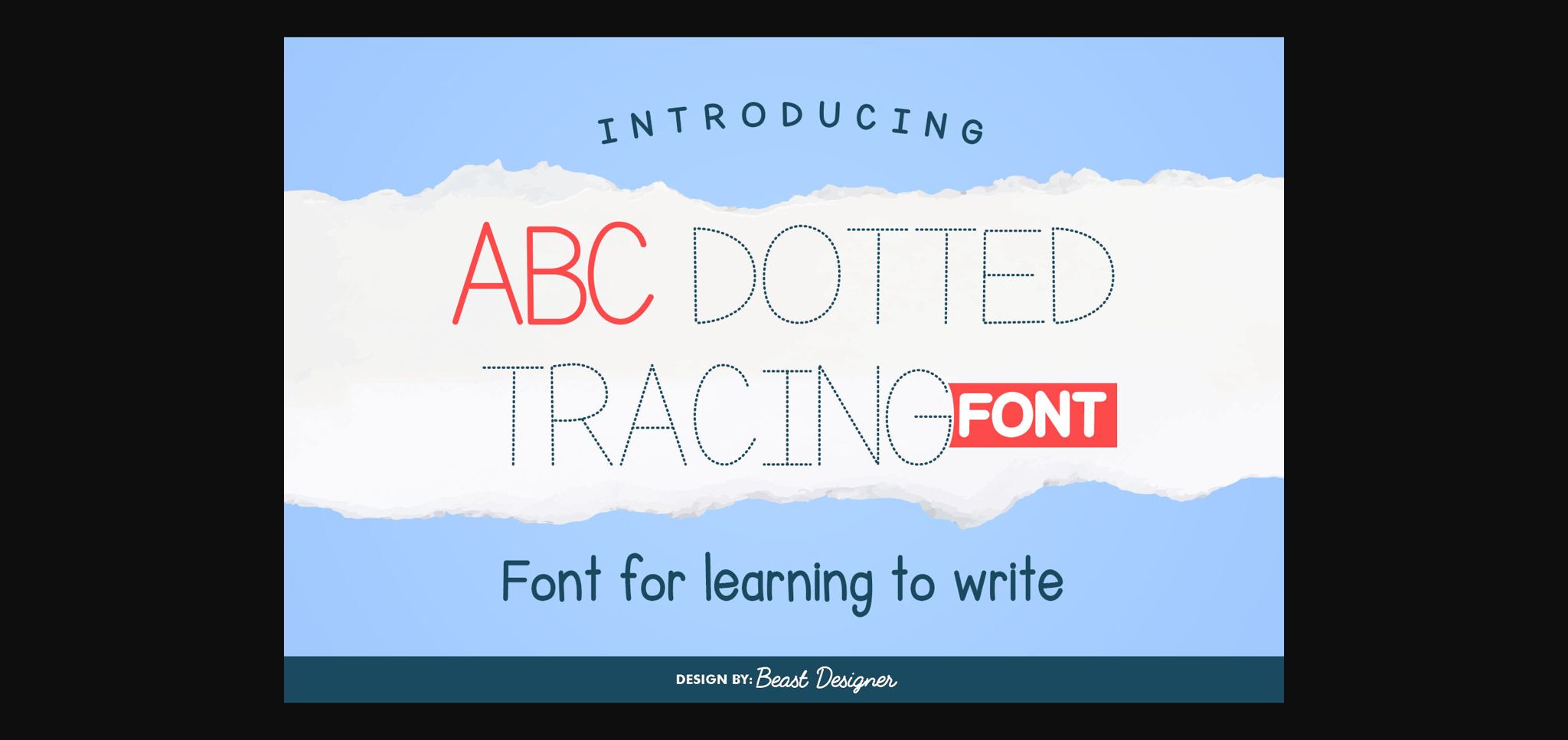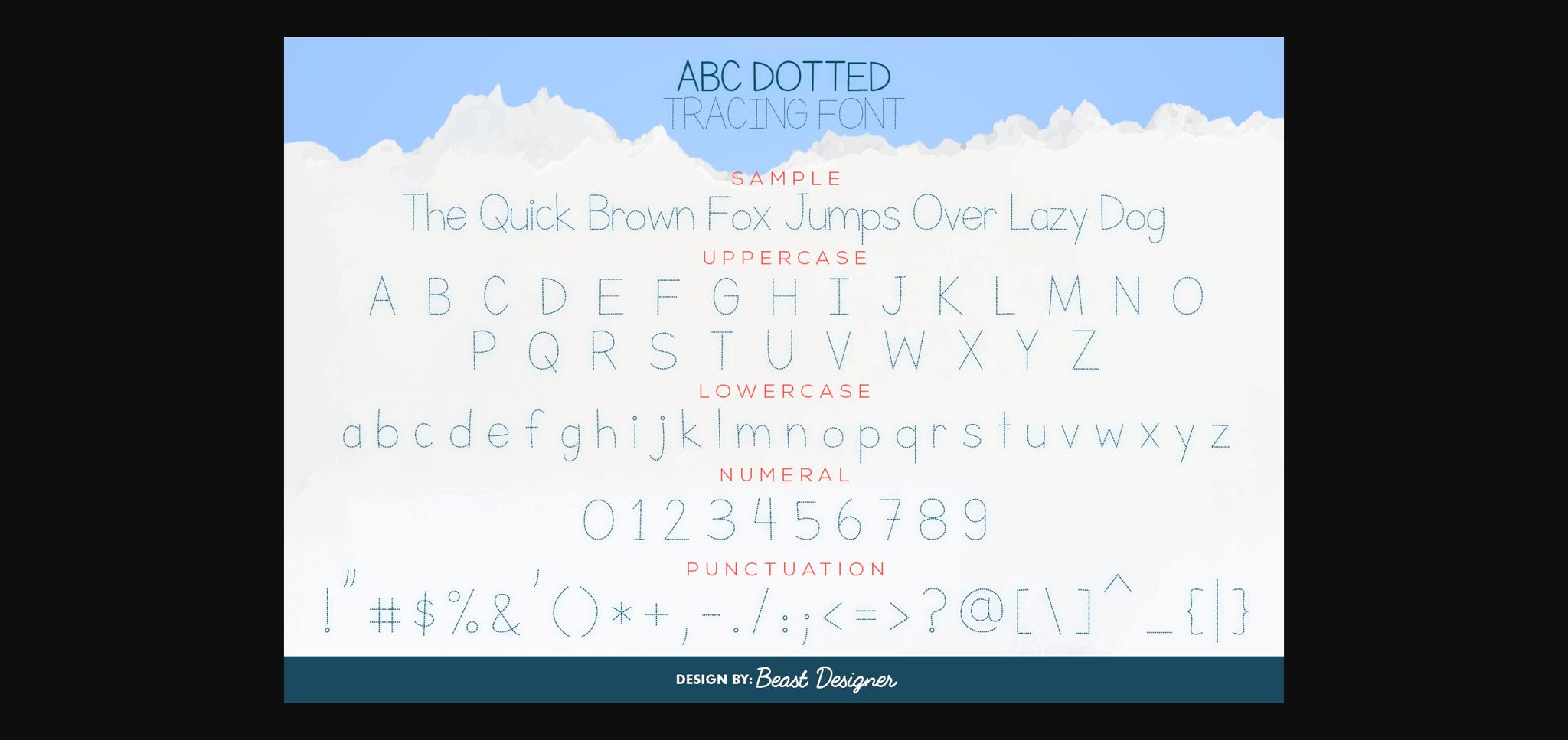
Abc Dotted Tracing Font
About Abc Dotted Tracing Font
ABC Dotted Tracing Font is a user-friendly typeface designed specifically to aid in early childhood education and handwriting practice.
Featuring clear, dotted outlines of each letter, this font serves as a guide for young learners as they trace and familiarize themselves with the alphabet.
The dotted lines help children develop fine motor skills and hand-eye coordination while practicing proper letter formation.
This font is often utilized in educational materials, worksheets, and apps aimed at supporting kids in mastering the fundamentals of writing in a fun and engaging way.